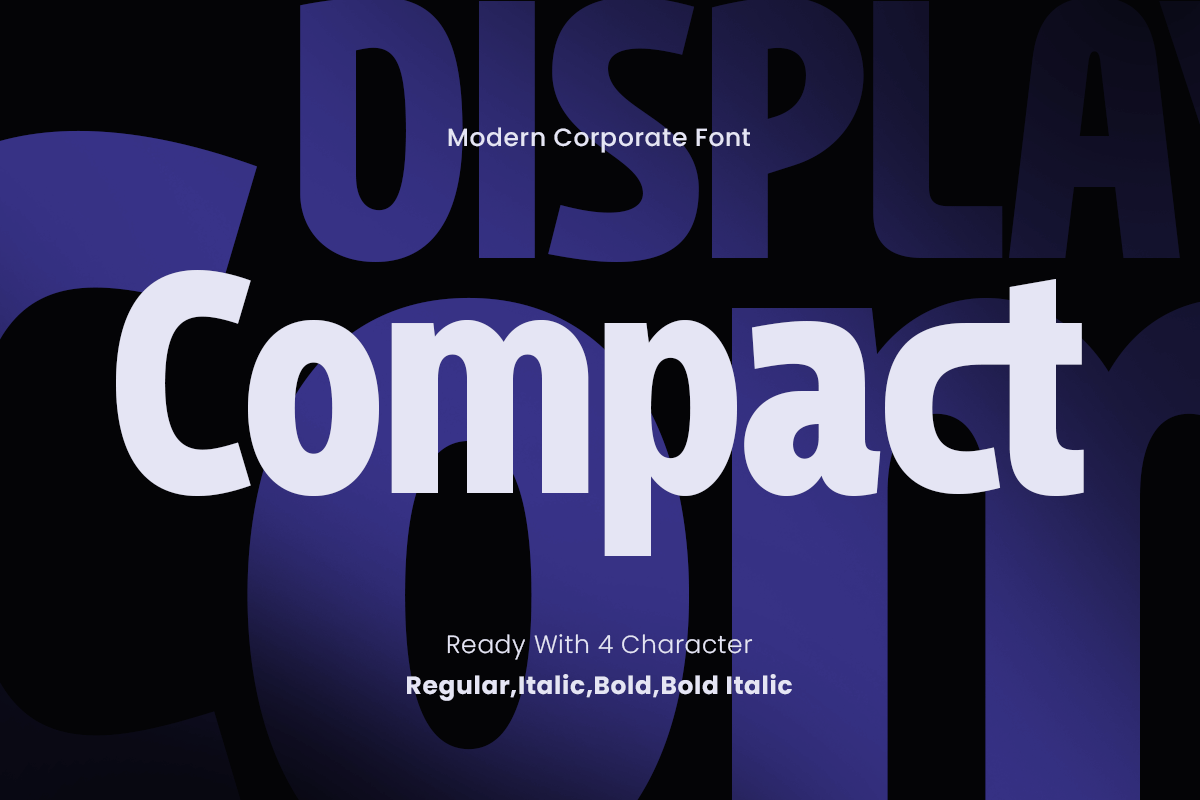
Compact
-Modern Corporate Font
Compact - Modern Corporate Font
Compact is a modern corporate font that combines clean lines and functional design to meet the demands of business-oriented projects. Its structured and minimalistic style ensures a professional and polished look.
Tailored for Corporate Excellence
From branding to presentations, Compact is the go-to font for creating impactful designs. It strikes the perfect balance between clarity and style, making it an excellent choice for logos, reports, and advertisements.
Effortless Versatility for Every Need
With its modern and professional aesthetics, Compact adapts to a wide range of applications. It’s not just a font—it’s a tool for delivering precision and elegance in every project.
Compact Modern Corporate Font Features:
• Available with 4 Styles Font Family
• Alternates & Ligature Characters Ready
• Punctuation, Number, and Symbol